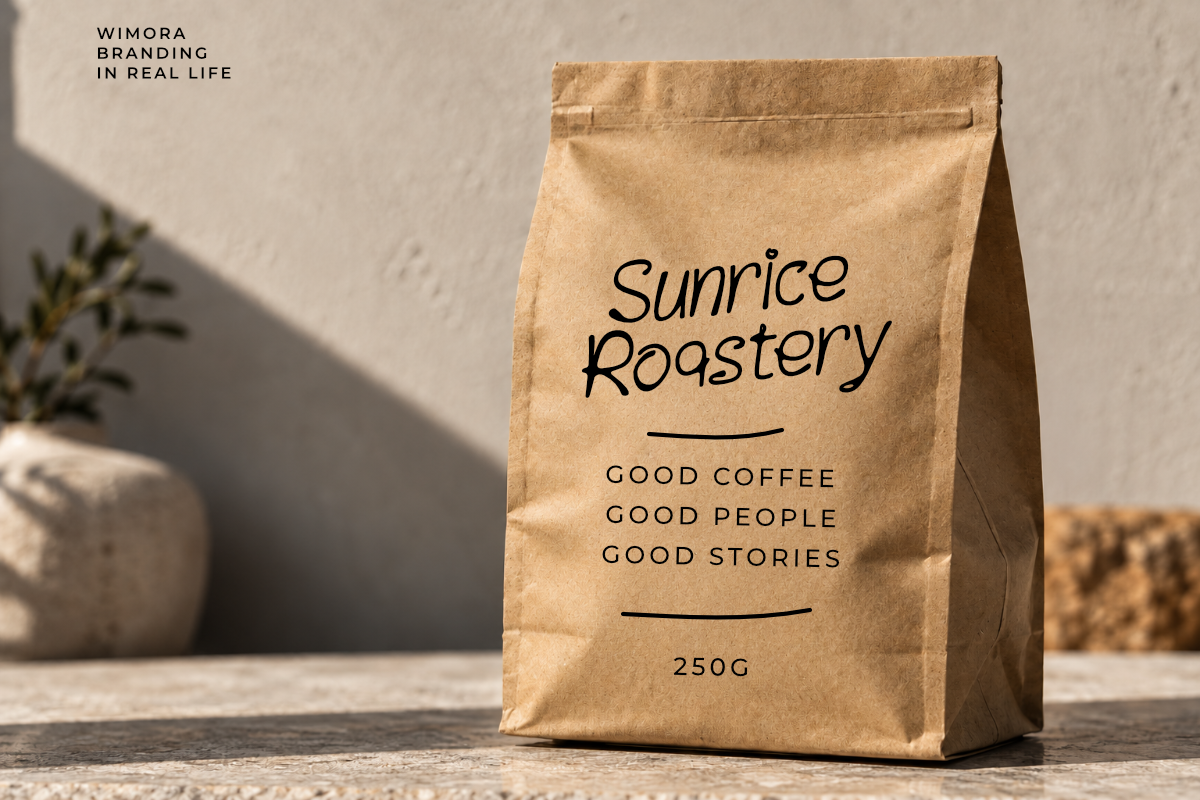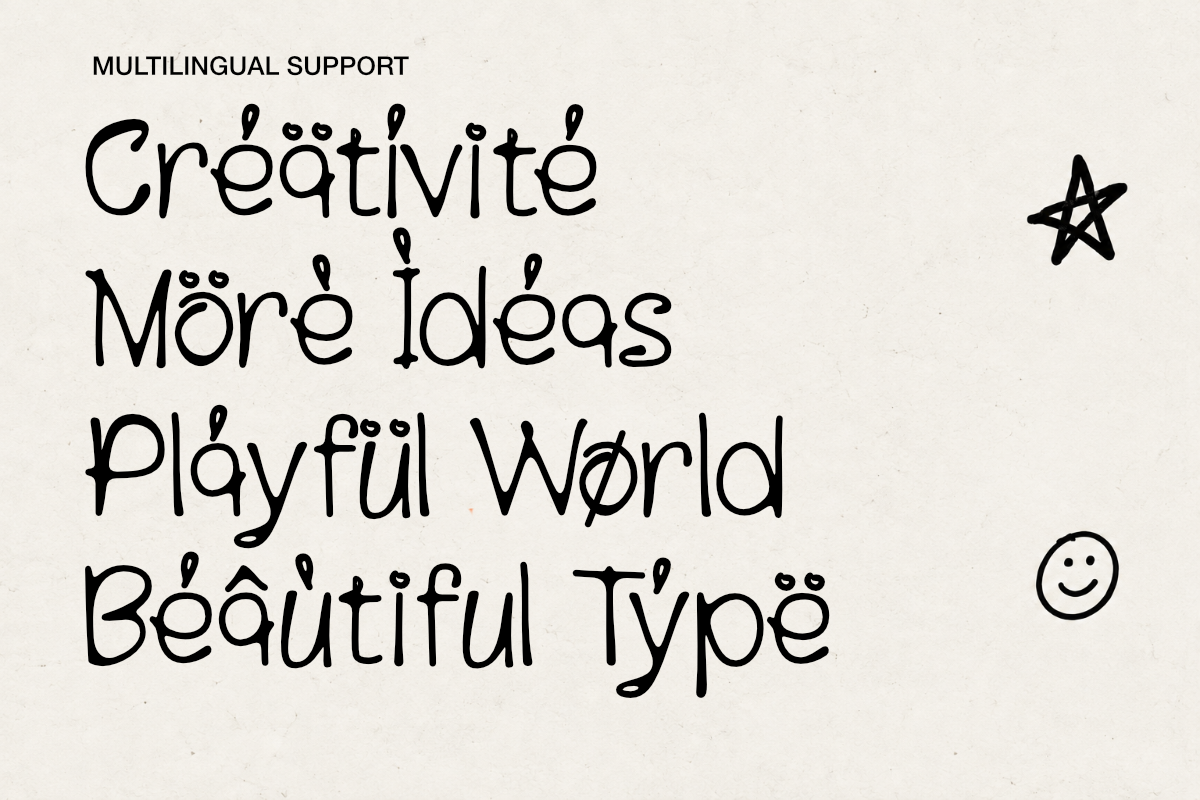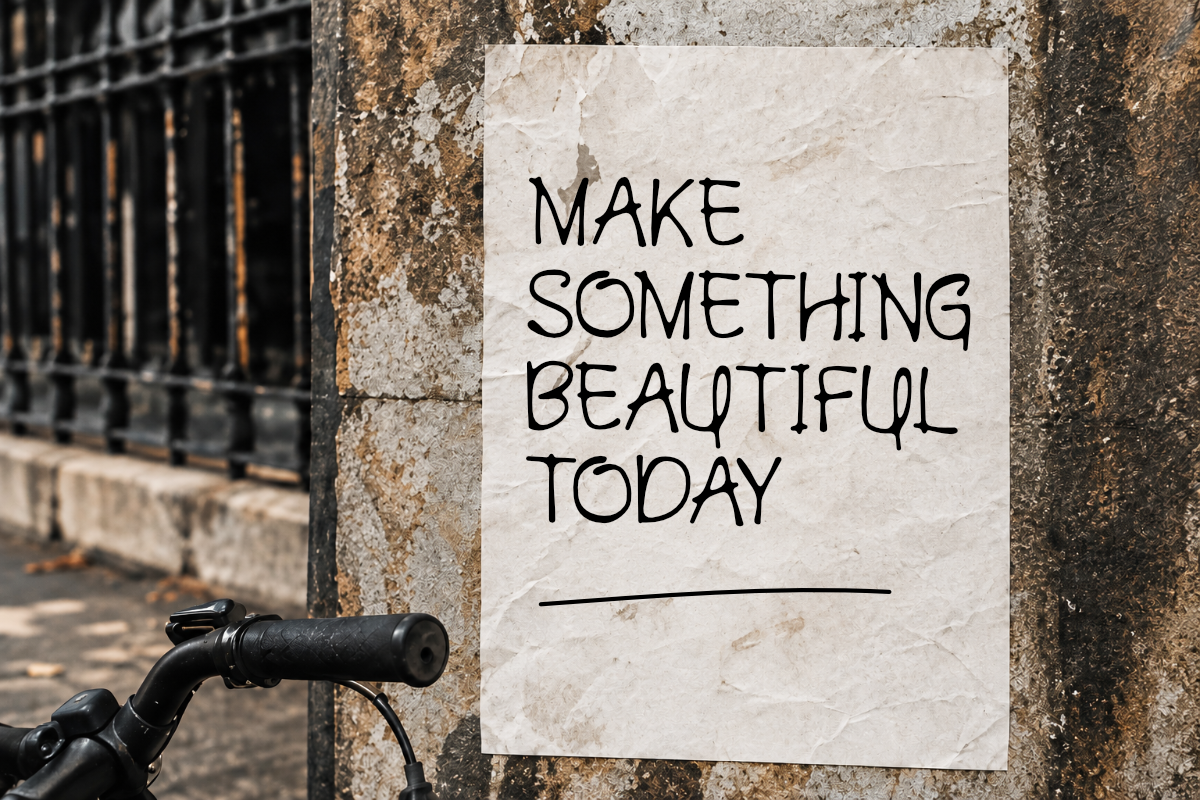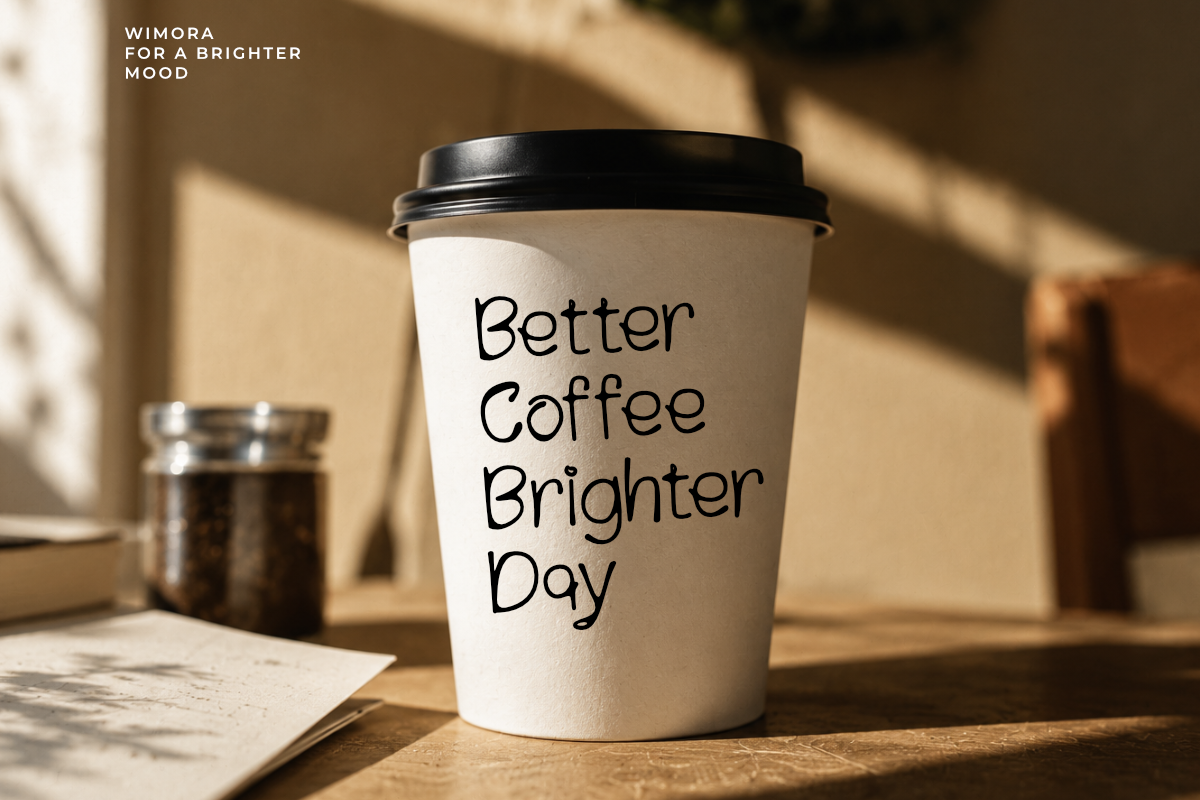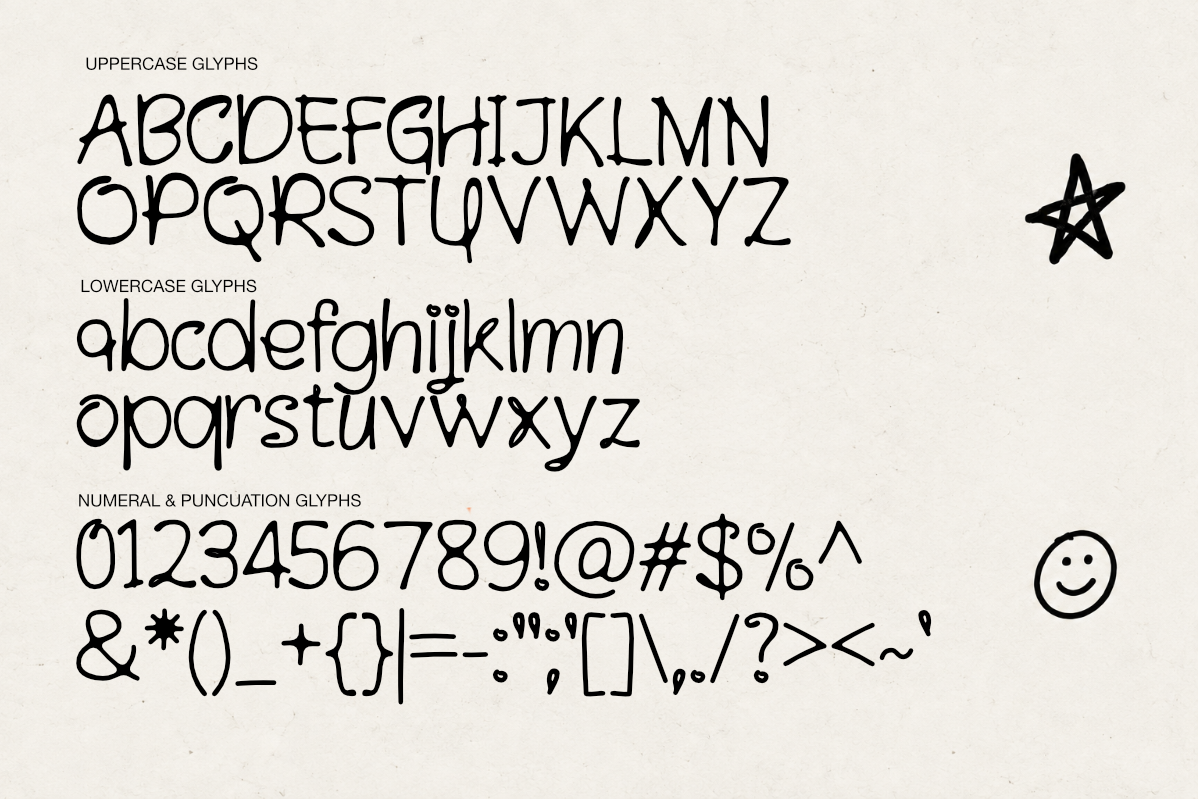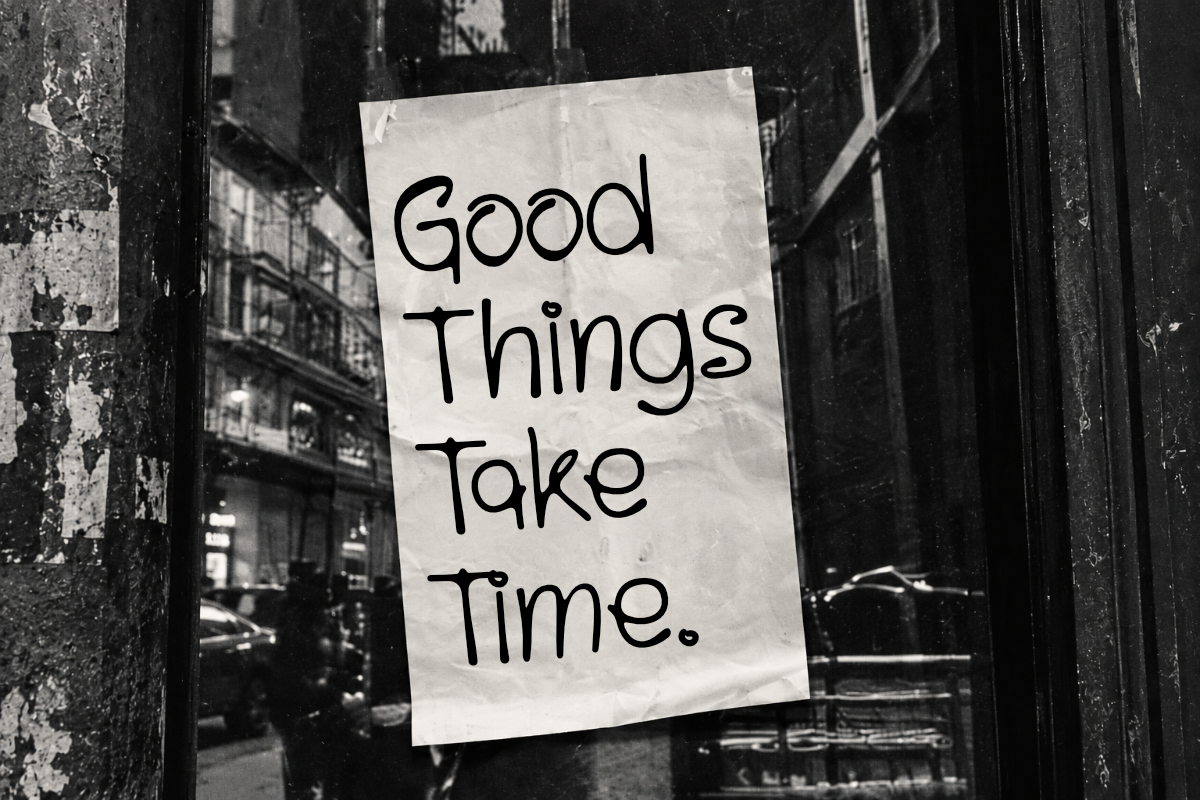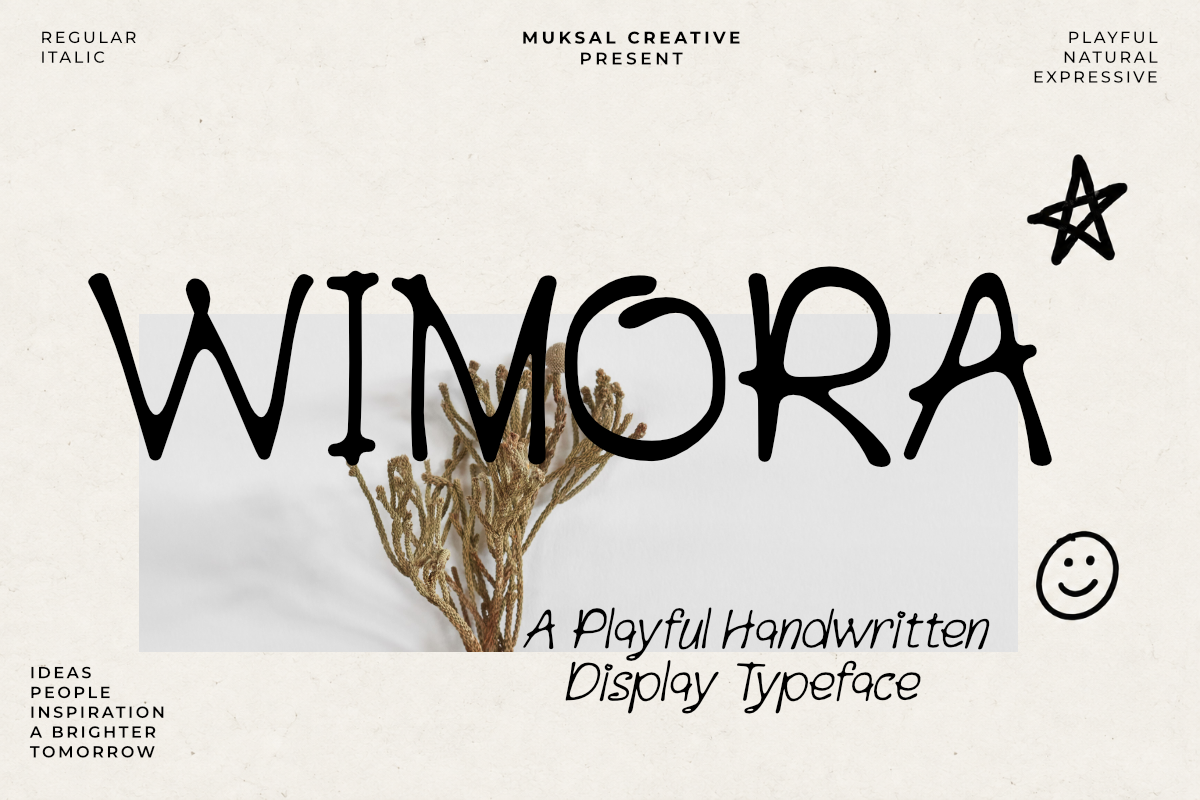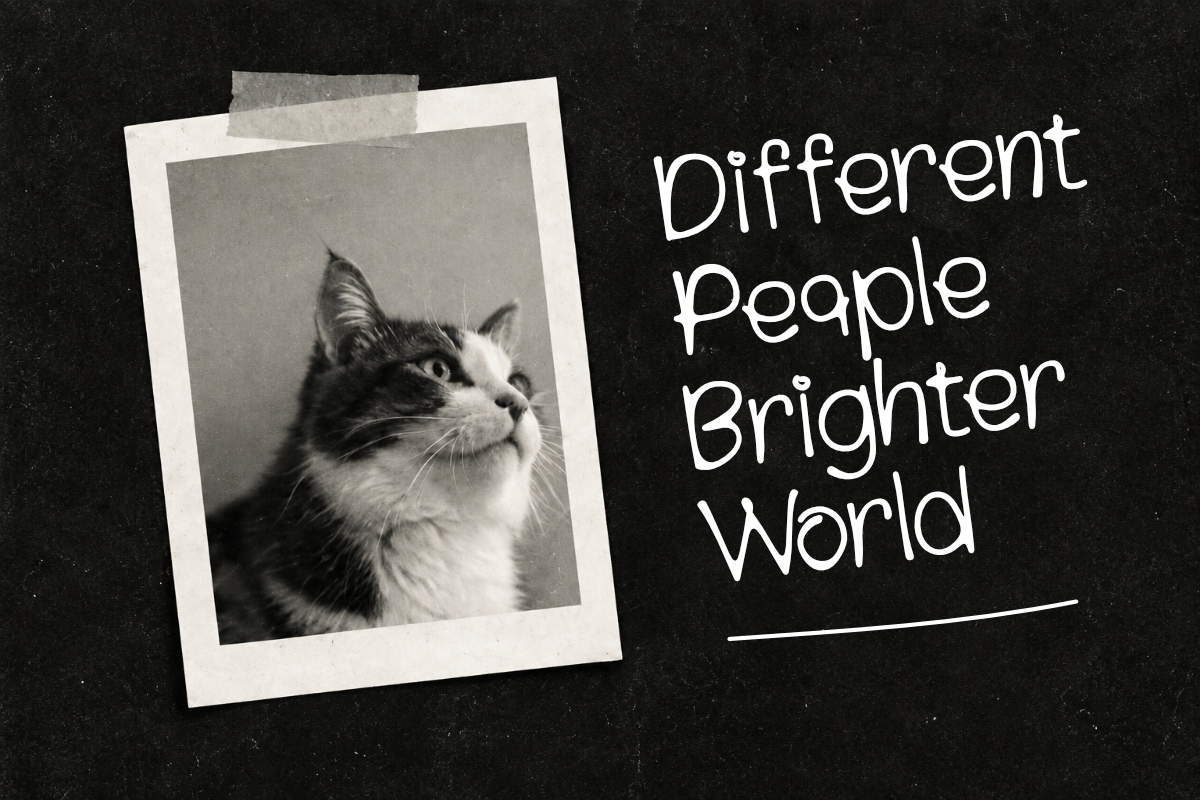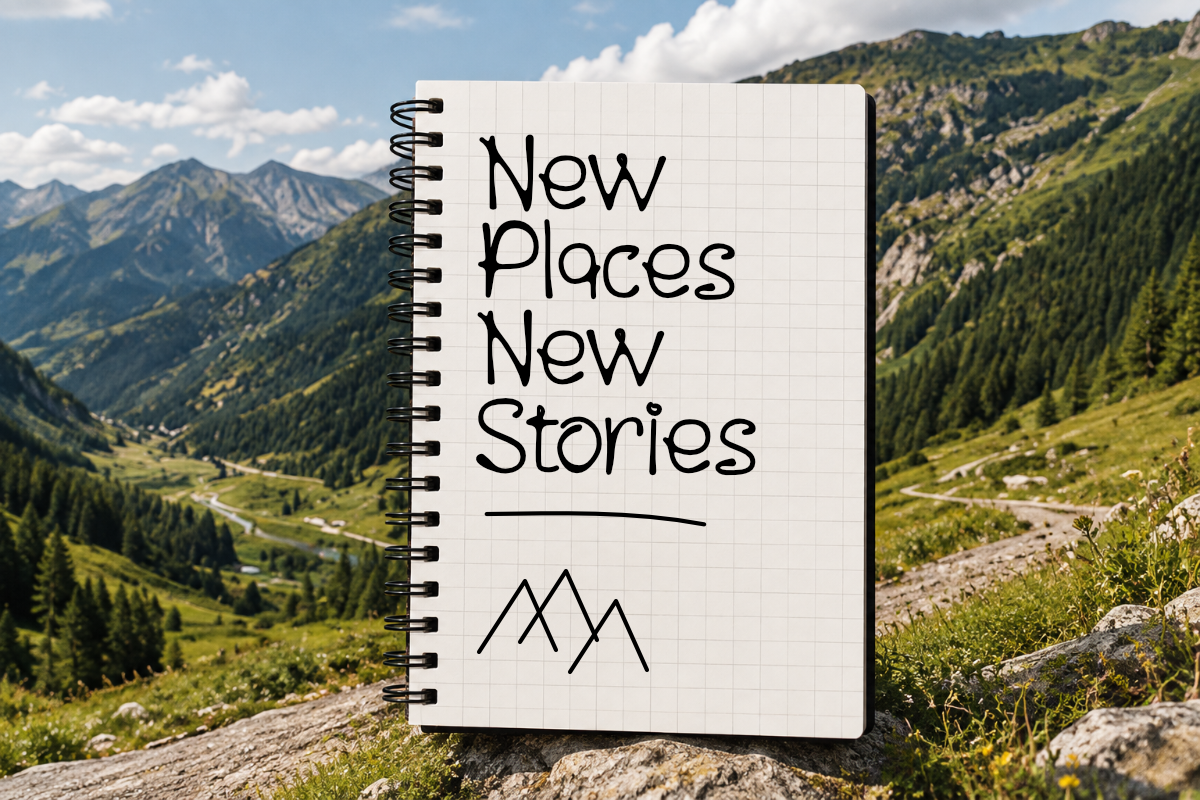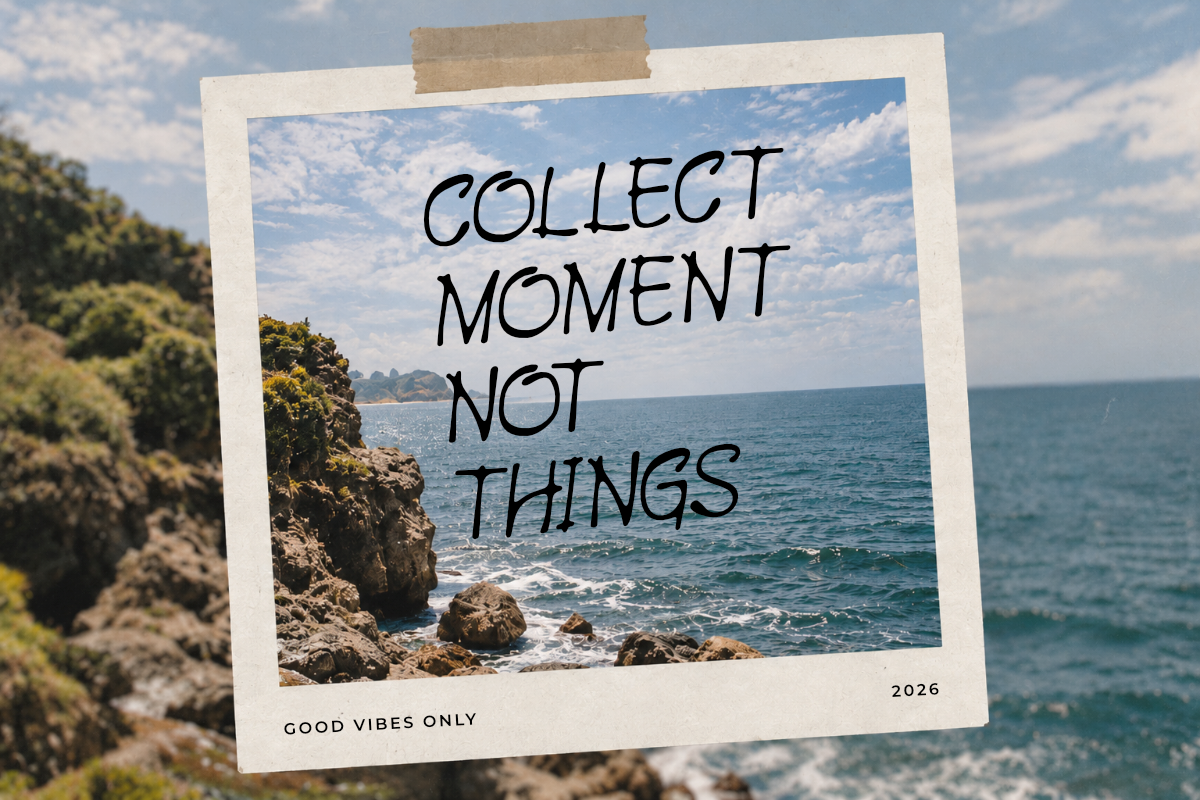
Wimora Playful Handwritten Typeface
WIMORA is a playful and expressive handwritten typeface designed to bring a natural, quirky, and creative personality to your designs. Featuring tall, slightly irregular letterforms and charming hand-drawn details, WIMORA captures the spontaneous character of real handwriting while maintaining a modern and versatile appearance.
WIMORA comes with 2 complementary styles — Regular and Italic. The Regular style delivers a relaxed and natural handwritten look, while the Italic style adds a more dynamic, energetic, and expressive character. Together, they give you greater flexibility to create contrast, emphasis, and visual hierarchy within your typography.
With its distinctive letterforms and imperfect human touch, WIMORA is ideal for branding, packaging, posters, editorial designs, social media graphics, apparel, invitations, stationery, lifestyle products, album artwork, and creative advertising.
Use the Regular style for headlines, logos, and primary typography, then combine it with Italic for supporting text, emphasis, quotes, or expressive details.
Whether you're creating a modern brand identity, an eye-catching poster, or a personal handwritten message, WIMORA brings warmth, personality, and a handcrafted feel to every word.
WIMORA is made for ideas that don't need to be perfect — just memorable.
2 Styles: Regular & Italic
Playful handwritten design
Tall and expressive letterforms
Natural hand-drawn appearance
Uppercase & lowercase characters
Multilingual support*